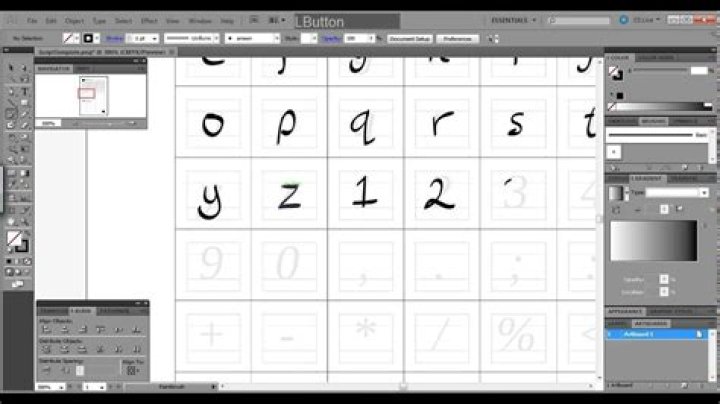
How can I create my own font?
How to Make Your Own Font
1. Decide what type of font (or typeface) you’d like to make. The two most basic typeface classifications are serif and sans serif.
2. Create your document and set up guides.
3. Draw the characters.
4. Export as .
5. Use your font creation software to compress it into a .
6. Export your typeface as a .
How can I make my own font for free?
How do I make my own font in Word?
Follow these steps:
Can I turn my handwriting into a font?
The process of turning your handwriting into a font is fairly simple. You register at Calligraphr, download a template, complete the template in your own handwriting, upload it and let the website do its thing. It will digitize your handwriting and turn it into a font file ready for you to download.
Is it hard to create a font?
Font creation can become very technical, time-consuming, and expensive – so it’s worth figuring out how deeply you want to dive before you start. The intended use of your font will help decide how much time and financial investment you want to put into its development.
How do I edit an existing font?
To modify a font, you use a category of software called a “font editor.” There are many font editors: FontLab , Glyphs , FontForge , and RoboFont are four of the most common. The most popular commercial font editors are FontLab and Glyphs.
How do you make a cursive font?
How to Create Your Own Cursive Handwriting Font
1. Do a simple warm-up before starting. Take a couple of minutes and draw the sticks and circles to get used to the materials.
2. Relax and take your time. Ignore the emotion and just breathe.
3. Select a letter style.
4. Try different materials.
5. Relax and enjoy the process!
Which is the best site to create your own font?
FontStruct – is a free browser-based tool for creating your own typography. It lets you create your own fonts quickly and easily. This tool allows you to download your font as a TrueType, share your fonts with the FontStruct community and even browse or download fonts uploaded by others.
How to create your own font-help desk Geek?
It works by having you select boxes to construct the font. There are circles, squares, curves, and lots of unique designs to help you make really customized fonts.
How to create your own font design and illustration?
You will learn so many new things while digging through a new creative field. If you’re not going to create a font yourself but you need one for your designs, then feel free to jump right to the Bananito Font Duo page on GraphicRiver and get it there! Or pick your own favourite font from these epic lists:
• Select all the icons you wish to include in the font.
• Generate the font.
• Rename all the icons and define a unicode character for each (optional).
How do you Make Your Handwriting font?
For Windows, go to ‘ Control Panel ’ and search for ‘Fonts’. Just copy and paste your newly downloaded font into the ‘Fonts’ folder. From within your applications, you can then select your handwritten font by its name to use it. Here’s our not-too-shabby font.